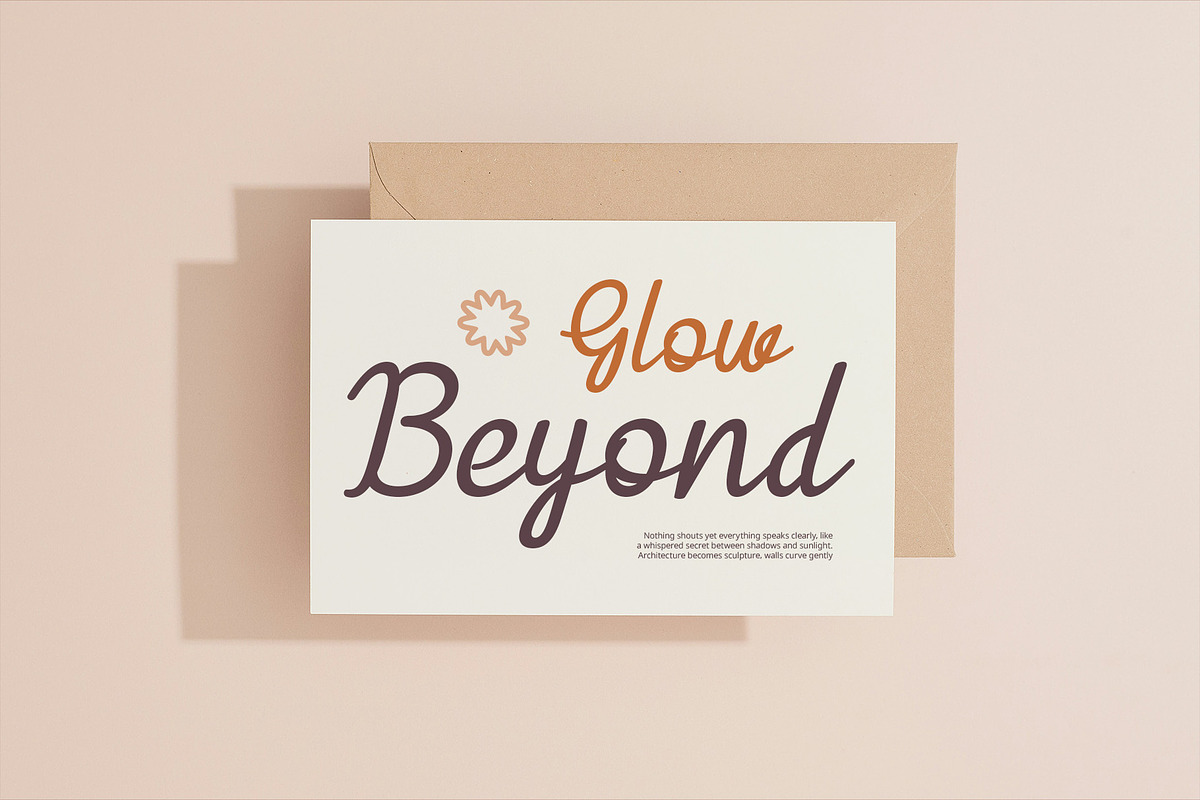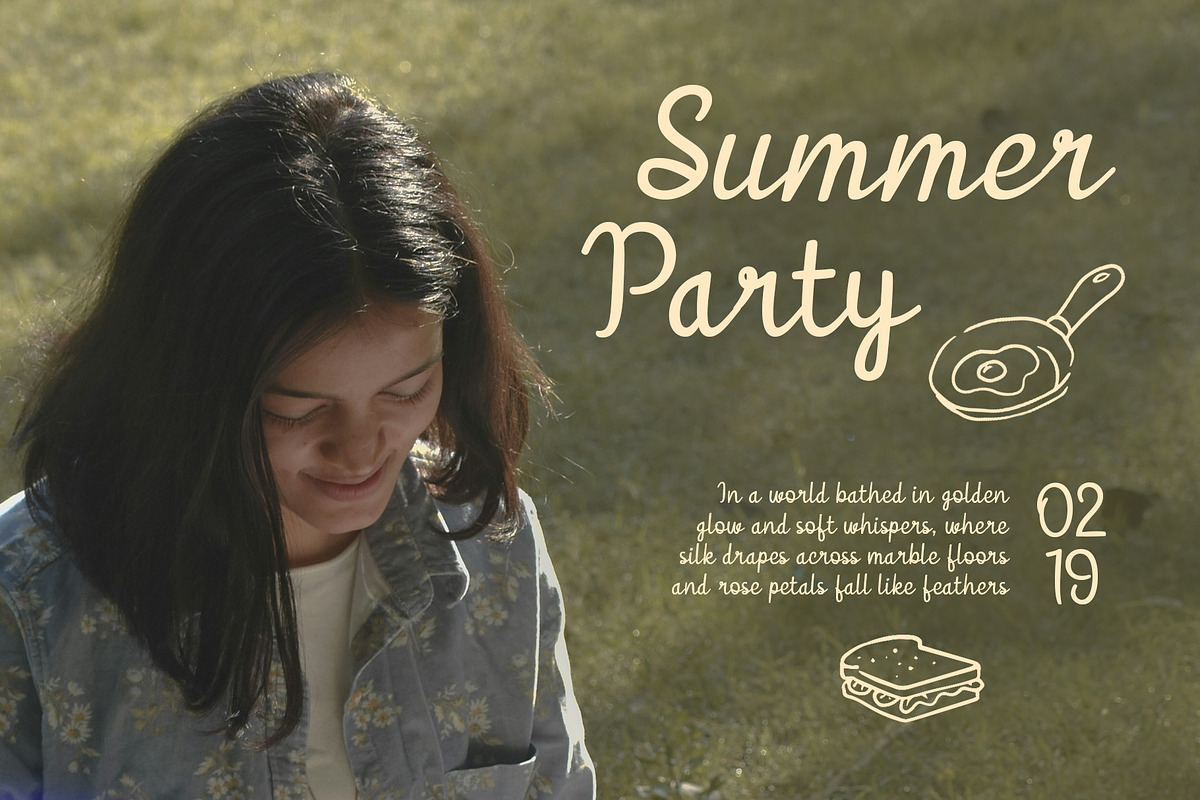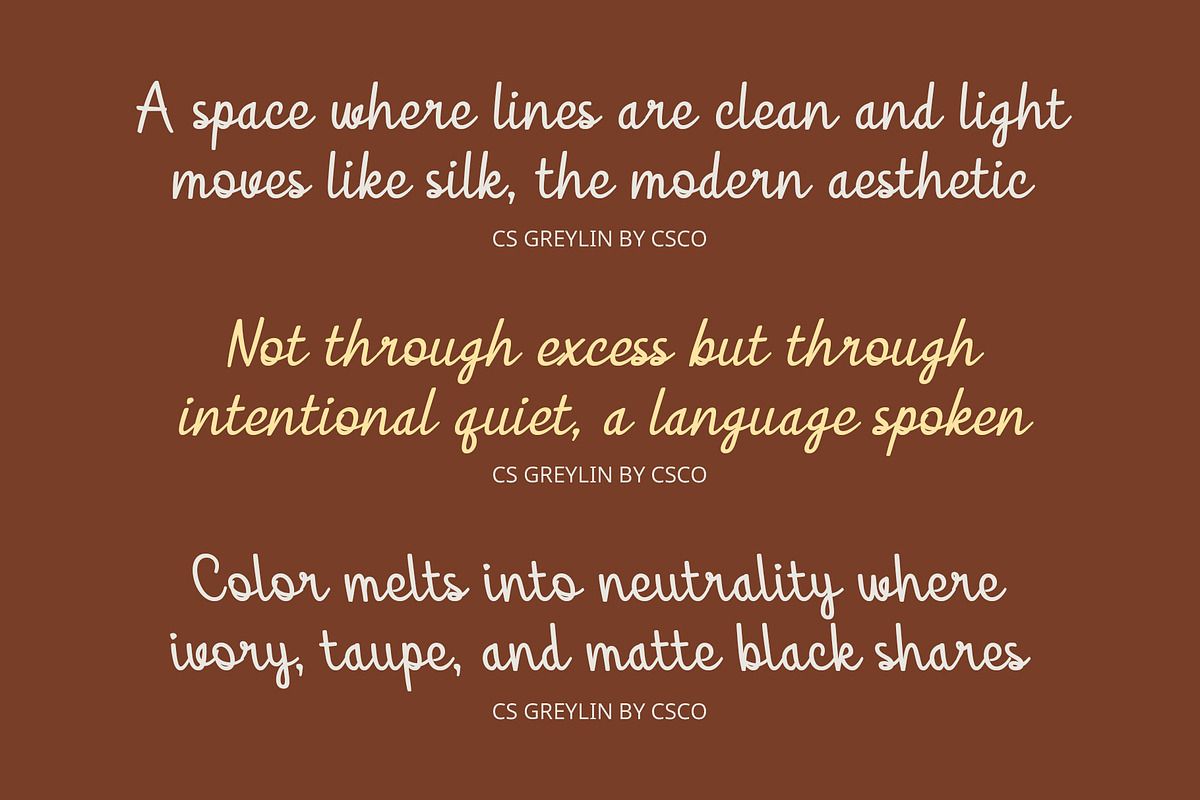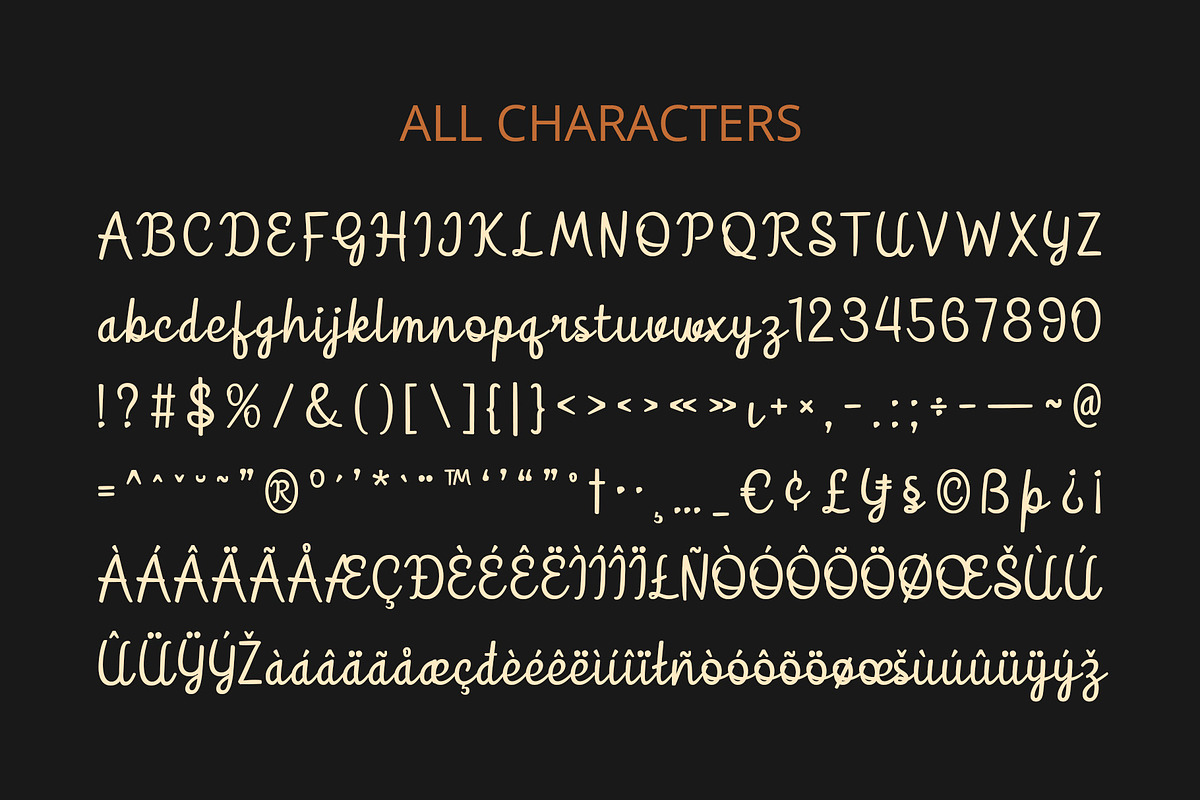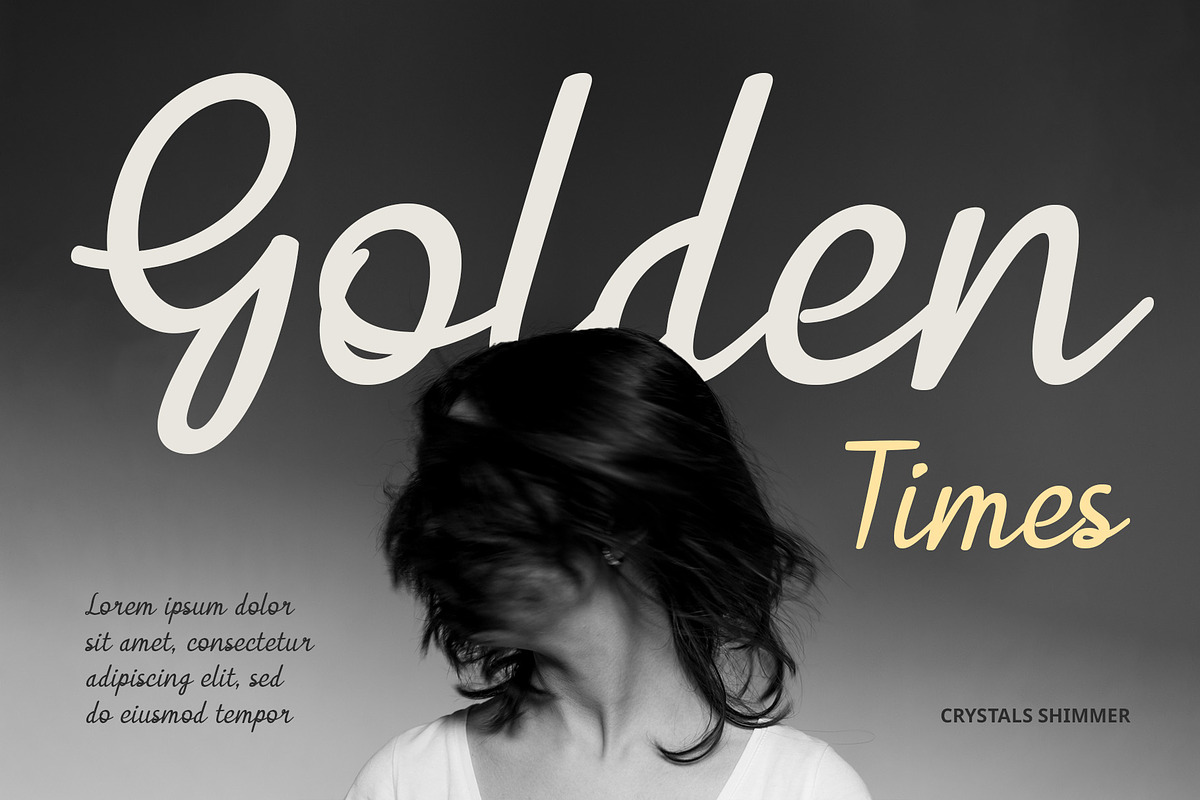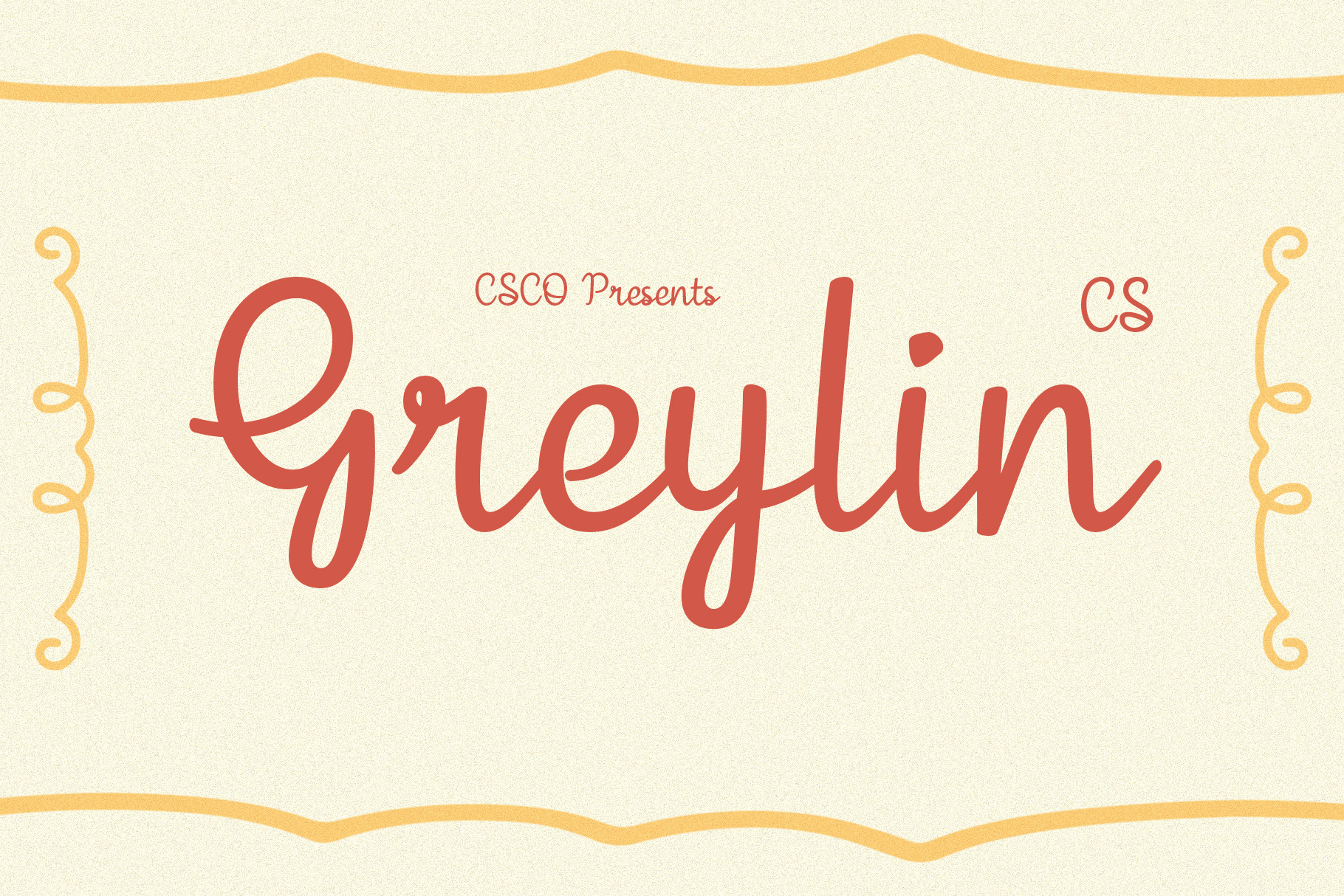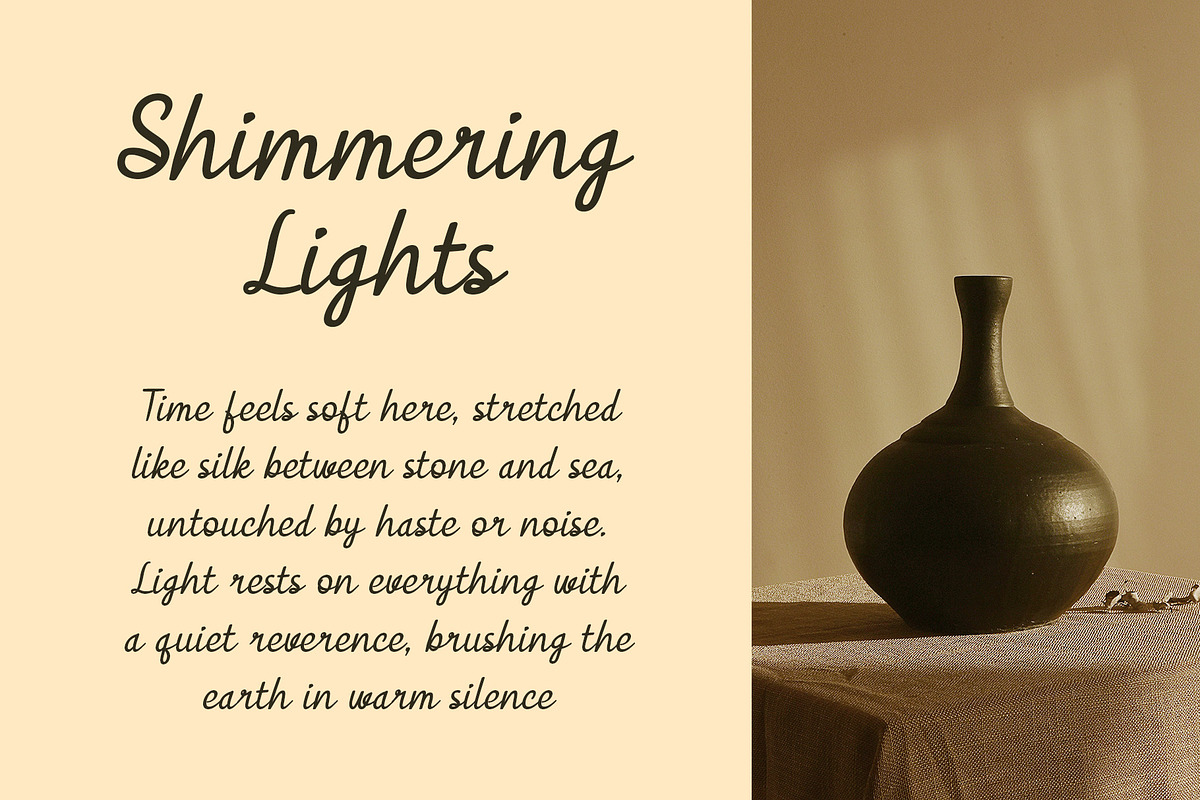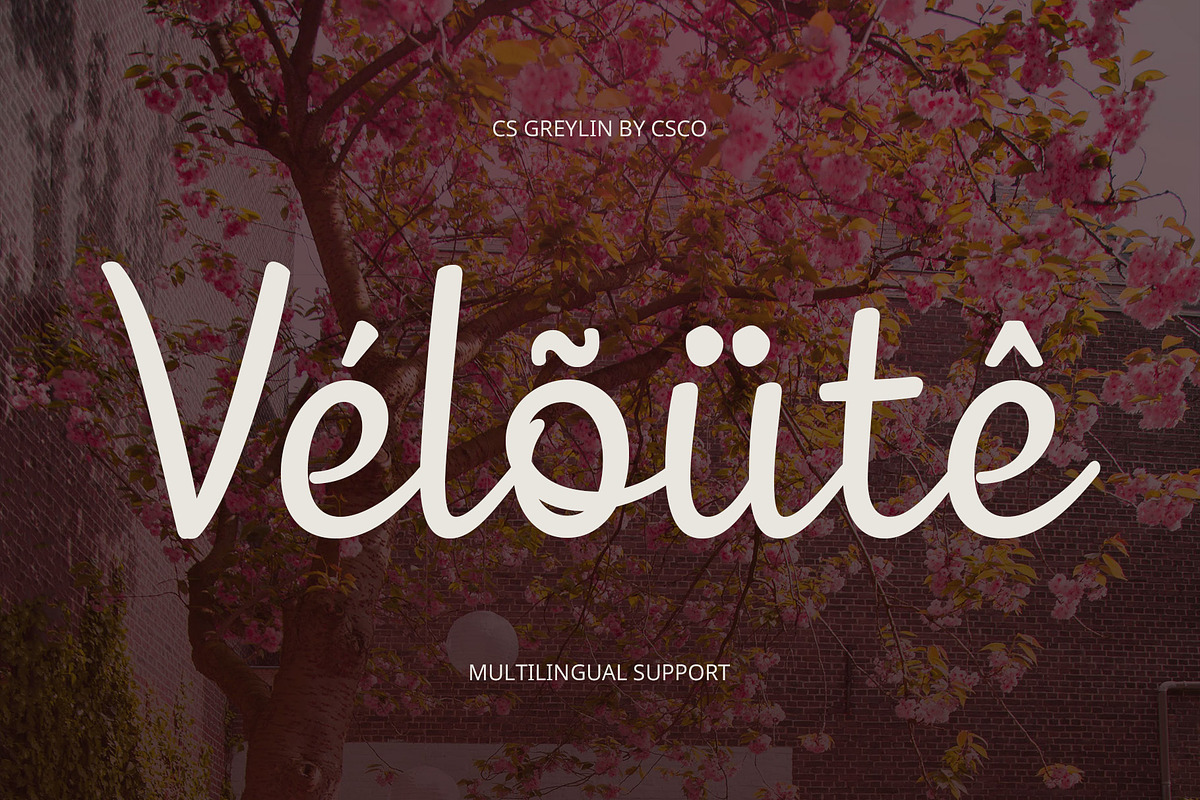
CS Greylin – Script Font
CS Greylin – Script Font: Grace in Every Curve
Flowing Cursive with Modern Precision CS Greylin is a modern script font that beautifully merges the charm of handwritten cursive with the precision of contemporary typography. Every stroke flows smoothly, creating a continuous rhythm that feels natural yet deliberate. This unique balance allows the font to exude both approachability and sophistication, making it a captivating choice for designs that demand visual harmony.
Clean and Proportional Design Crafted with precision, CS Greylin features neat, proportional lines and consistent spacing, giving each character a refined appearance. The subtle firmness in its strokes ensures clarity, while the gentle curves preserve its softness. This meticulous design approach makes it highly legible at various sizes.
Perfect for Luxury and Feminine Branding CS Greylin radiates elegance, making it ideal for projects that aim to highlight beauty, grace, and refinement. It effortlessly elevates wedding invitations, upscale event stationery, and luxury branding for beauty products. The font’s fluid style and polished form convey a professional impression while retaining a warm, personal touch that resonates with audiences.
Versatile Sophistication Beyond its beauty, CS Greylin is incredibly adaptable. Its timeless script style works seamlessly across a wide range of applications—logos, packaging, social media graphics, editorial layouts, and more. It can serve as a statement piece in bold displays or complement minimalist designs with subtle elegance.